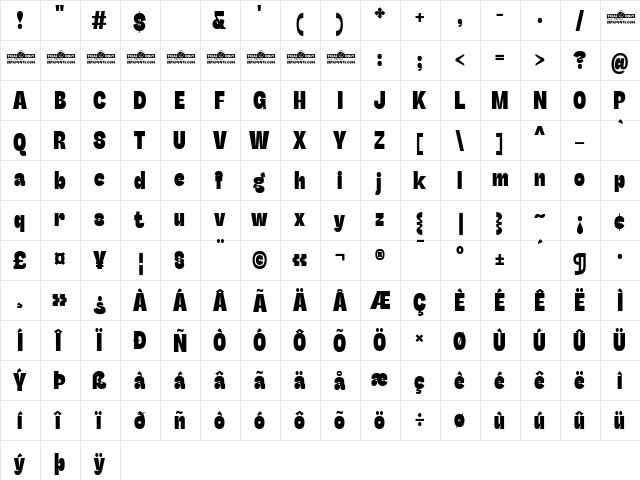
Stinger Slim Trial Heavy
Heavy · Studio Kmzero & Zetafonts Cosimo Lorenzo Pancini ·
Foundry Studio Kmzero & Zetafonts
DesignerCosimo Lorenzo Pancini
Design Context for Stinger Slim Trial Typeface
Stinger Slim Trial is a composed and adaptable typeface that performs quietly and consistently across a wide range of design contexts.